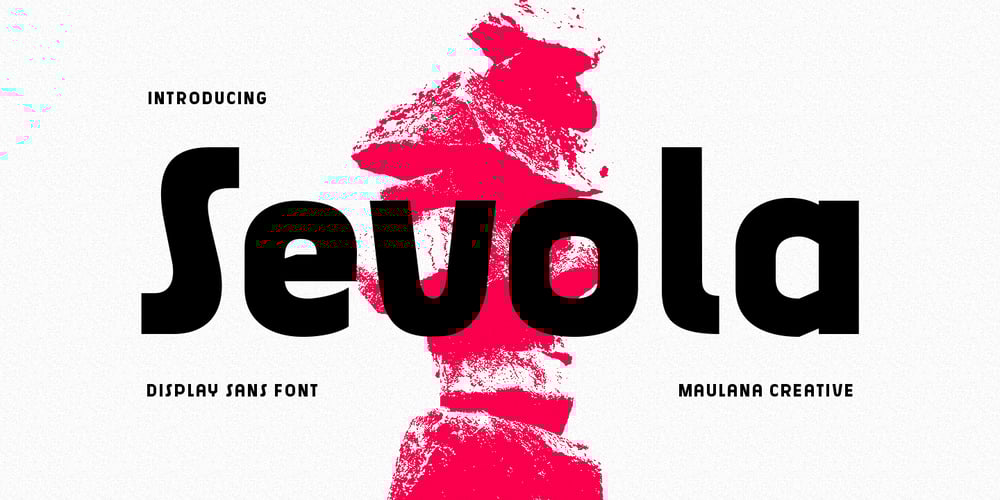
MC Sevola Font Family was designed by Gilang Maulana and published by Maulana Creative. MC Sevola contains 1 styles and family package options. Sevola is a modern Decorative sans serif Display font. Bold stroke, fun character with a bit of ligatures and alternates. To give you an extra creative work. Sevola font support multilingual more than 100+ language. This font is good for logo design, Social media, Movie Titles, Books Titles, a short text even a long text letter and good for your secondary text font with script or serif. Make a stunning work with Sevola font. Cheers, Maulana Creative